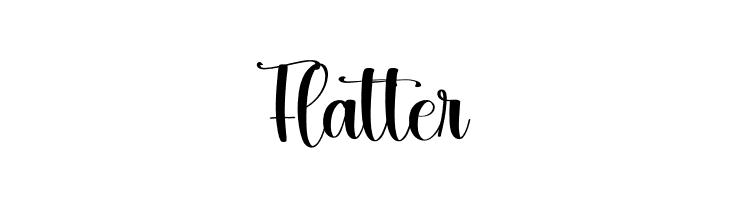
( Fonts by Letterena Studios )
Playful handwritten font with a casual style.
( Fonts by Erlina Graphic )
A playful, flowing script font with smooth, cursive strokes.
( Fonts by pacobell )
A playful, hand-drawn font with irregular strokes and a whimsical style.
( Fonts by Inermedia Studio )
A lively, flowing script font with elegant curves and a handwritten feel.
( Fonts by Xerographer Fonts )
A playful, hand-drawn font with a crayon-like, whimsical style.
( Fonts by Letterena Studios )
Playful handwritten script font.